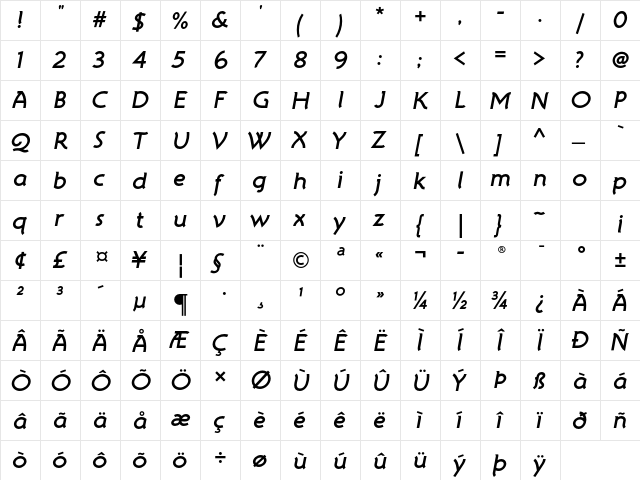
Atelier Sans ITC Std BoldIta
| Designer | Nick Curtis |
Design Context for Atelier Sans ITC Std Typeface
Atelier Sans ITC Std takes a measured approach to typography — its balanced proportions and neutral character make it a reliable workhorse for both digital and print work. The heavy weight commands attention and anchors typographic hierarchies.